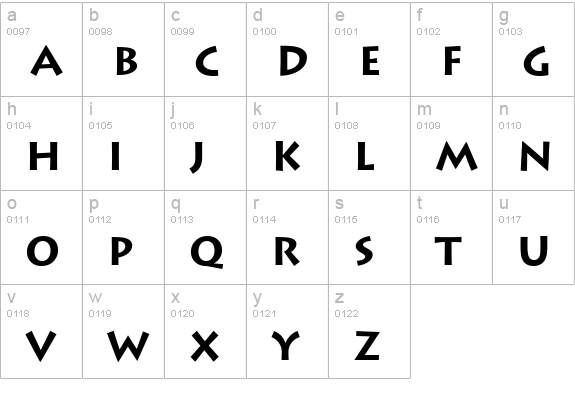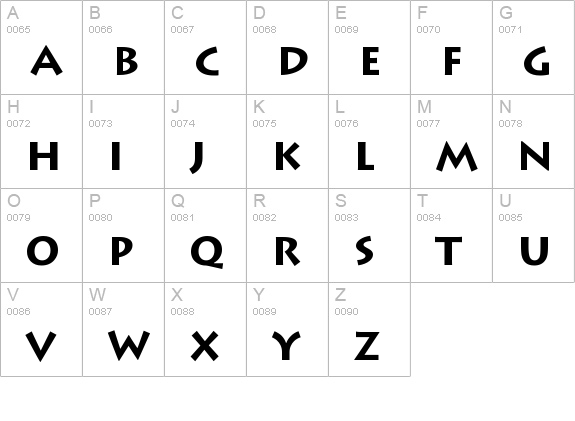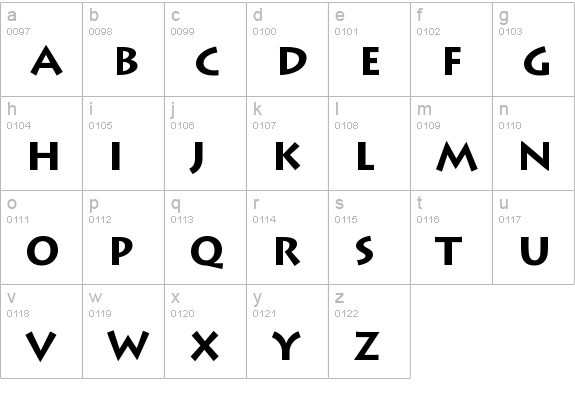
QTGreece Regular Font Details
QTGreece Regular is the standard, neutral variant in the QTGreece typeface family \xE2\x80\x94 well suited to general body text, paragraphs, and standard typographic work.
QTGreece Regular font is a visually appealing and versatile typeface that exudes elegance and sophistication. With its clean lines and well-balanced letterforms, this font is perfect for a wide range of design projects. Whether you're designing a logo, creating a website, or crafting a professional document, QTGreece Regular will add a touch of class and refinement. One of the best features of QTGreece Regular font is that it is available for free download at FontsMarket.com. This means that you can easily access and use this font in your projects without any cost. Whether you're a professional designer or a casual user, having access to high-quality fonts like QTGreece Regular can greatly enhance your creative work. The versatility of QTGreece Regular font is another reason why it is a must-have for any designer. Its classic and timeless design makes it suitable for a variety of design styles, whether you're going for a modern and minimalist look or a more traditional and vintage aesthetic. The clean and legible letterforms ensure that your message will be easily understood by your audience, no matter the size or context of your design. QTGreece Regular font is also incredibly easy to work with. Its well-designed glyphs and ample spacing make it a breeze to use in any design software, ensuring a seamless and hassle-free experience. Whether you're a beginner or an experienced designer, you'll appreciate the user-friendly nature of this font. In conclusion, QTGreece Regular font is a stunning and versatile typeface that will elevate your design projects to new heights. With its elegant and sophisticated design, it is perfect for a wide range of applications. And the best part? It is freely available to download at FontsMarket.com, making it accessible to everyone. So why wait? Enhance your designs today with QTGreece Regular font.